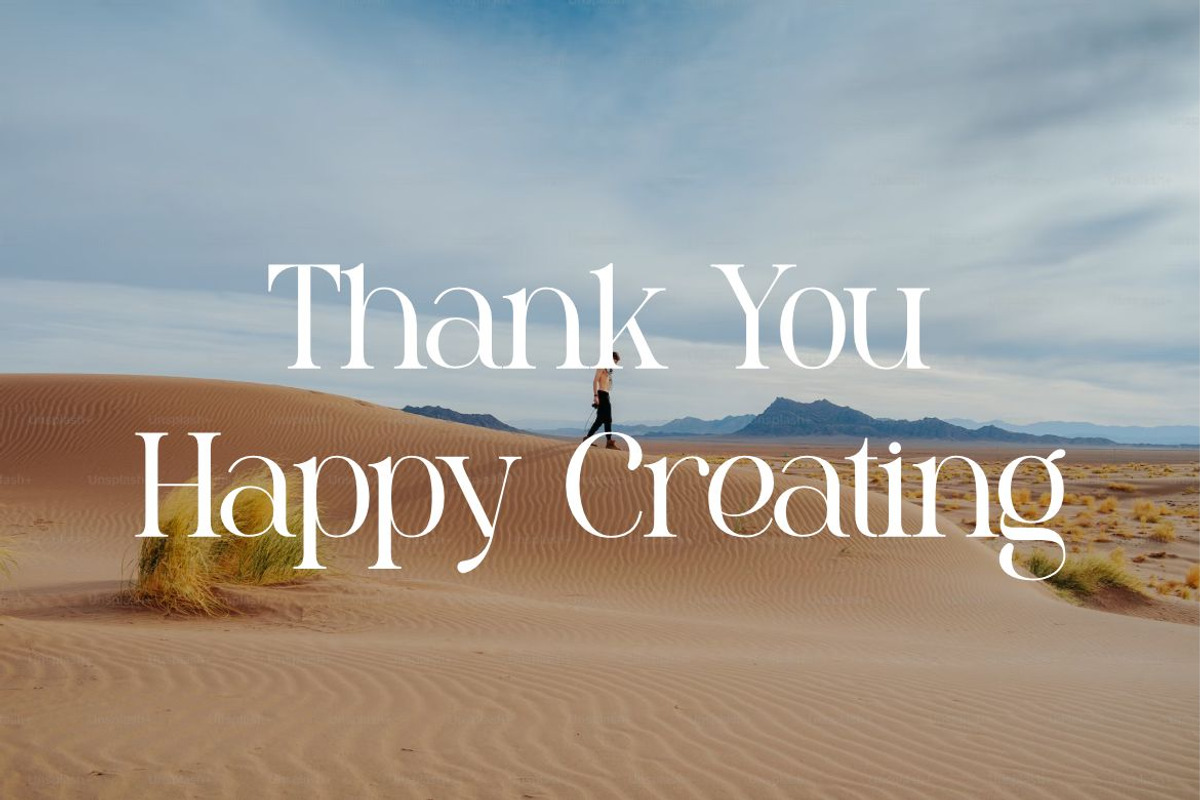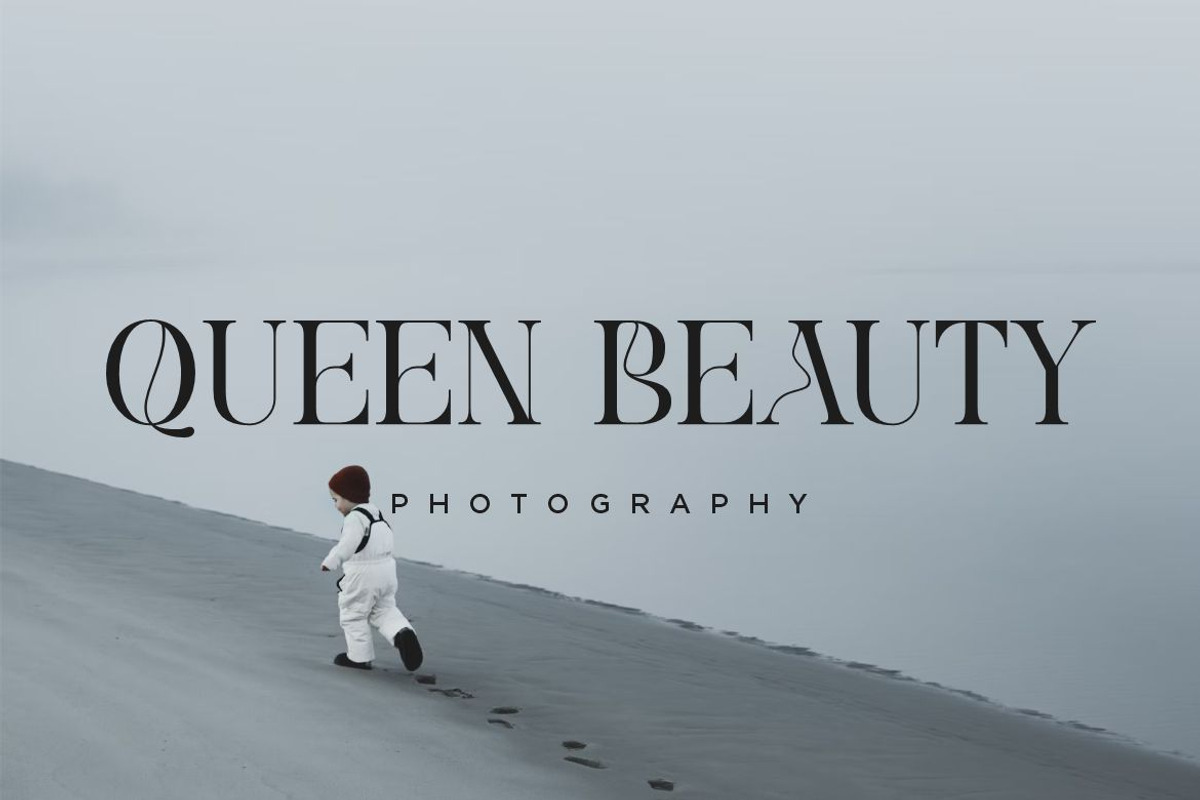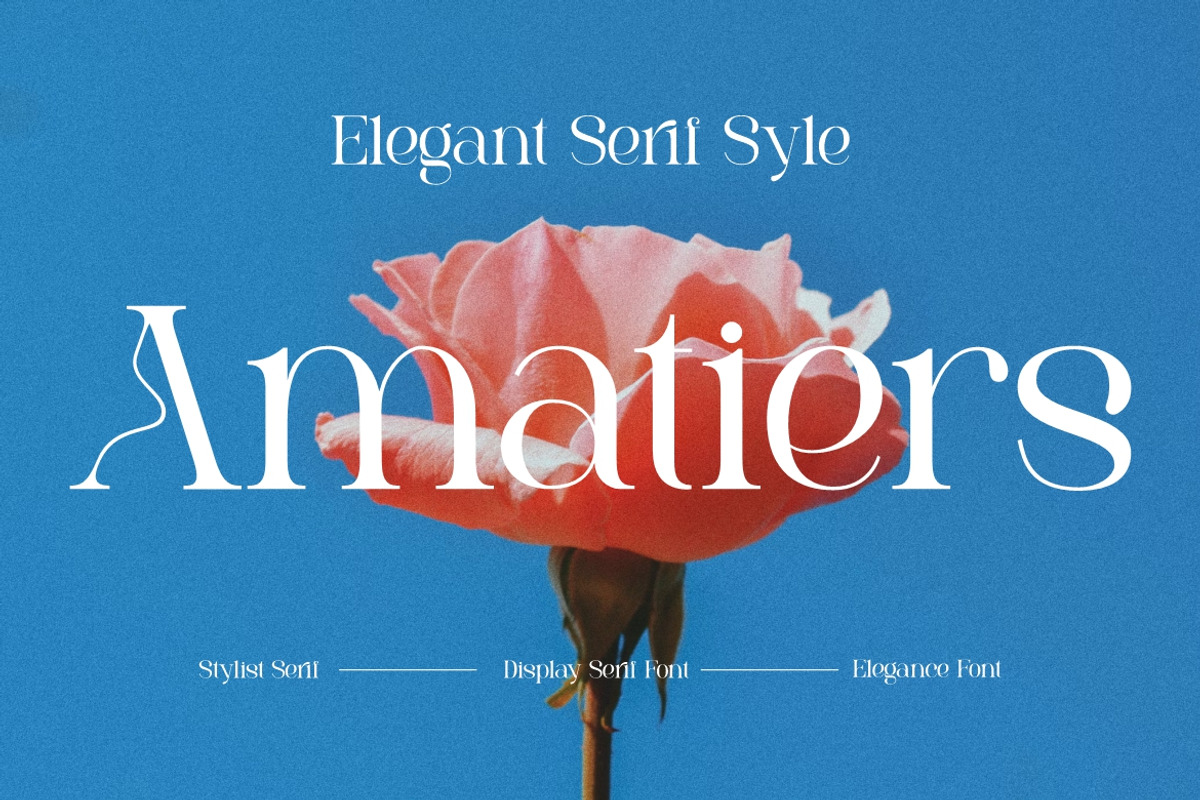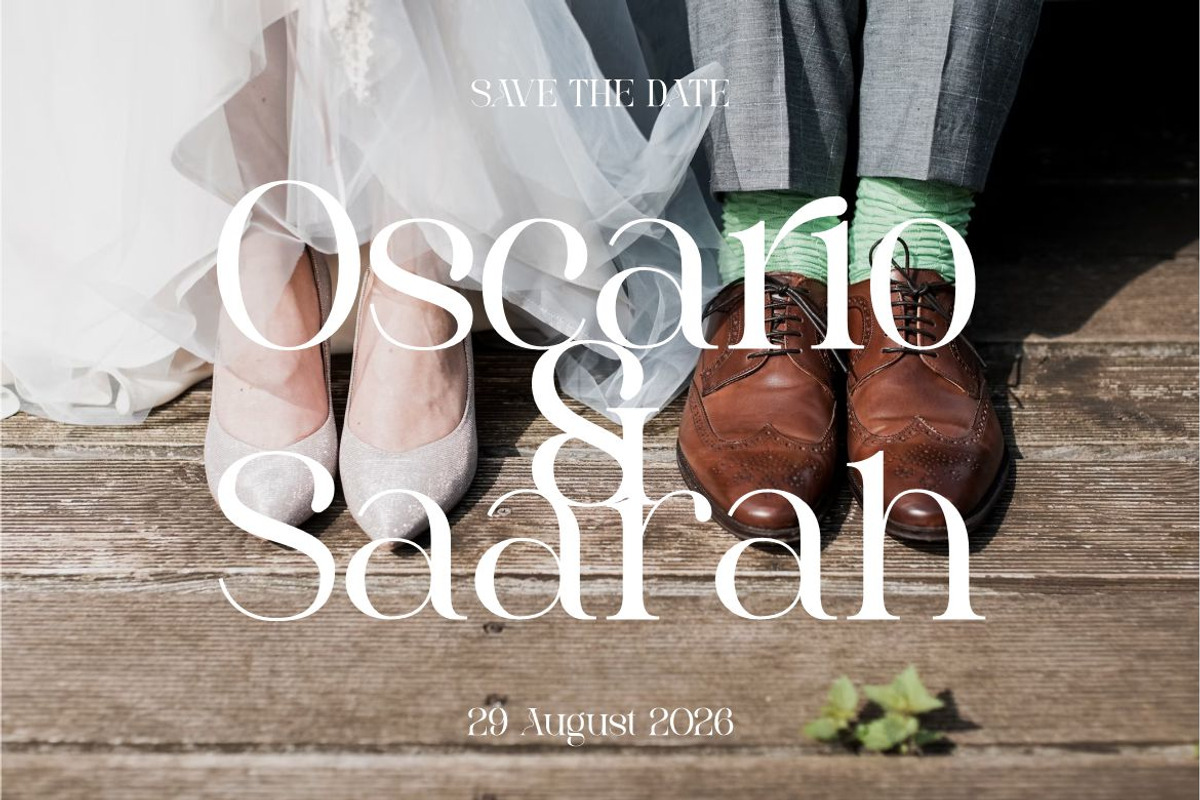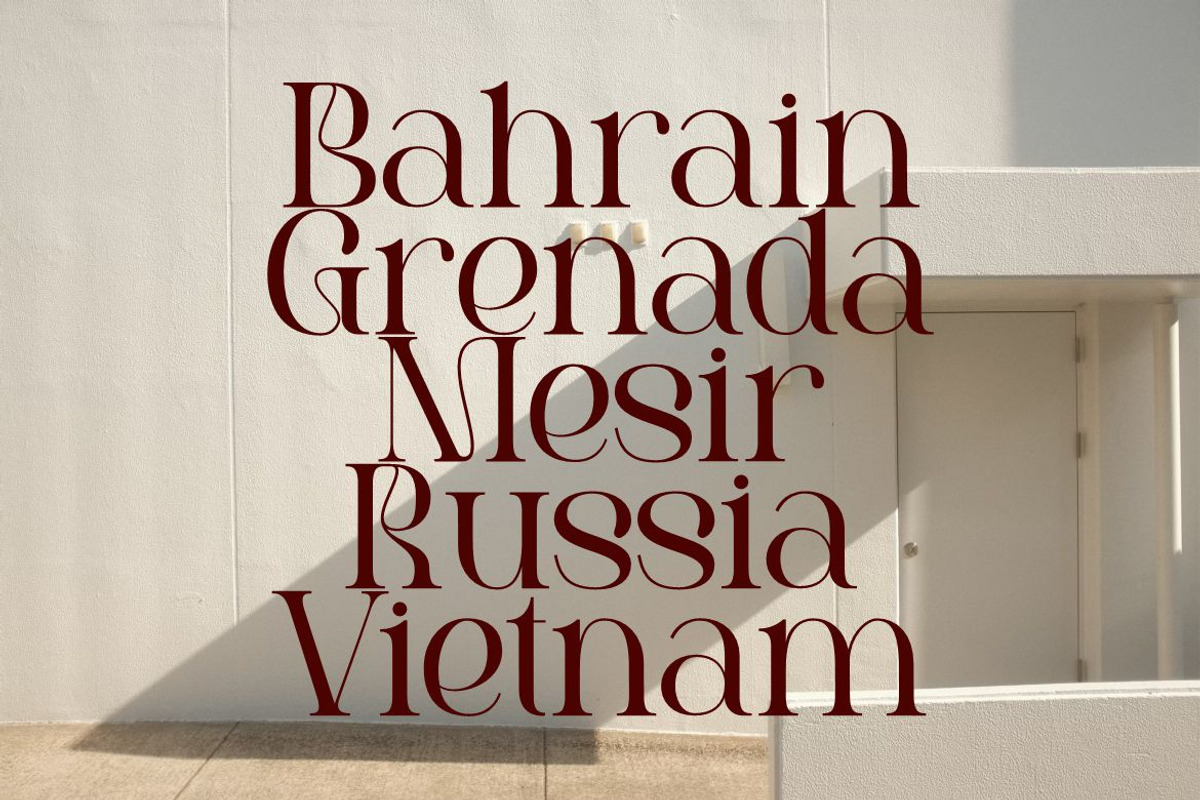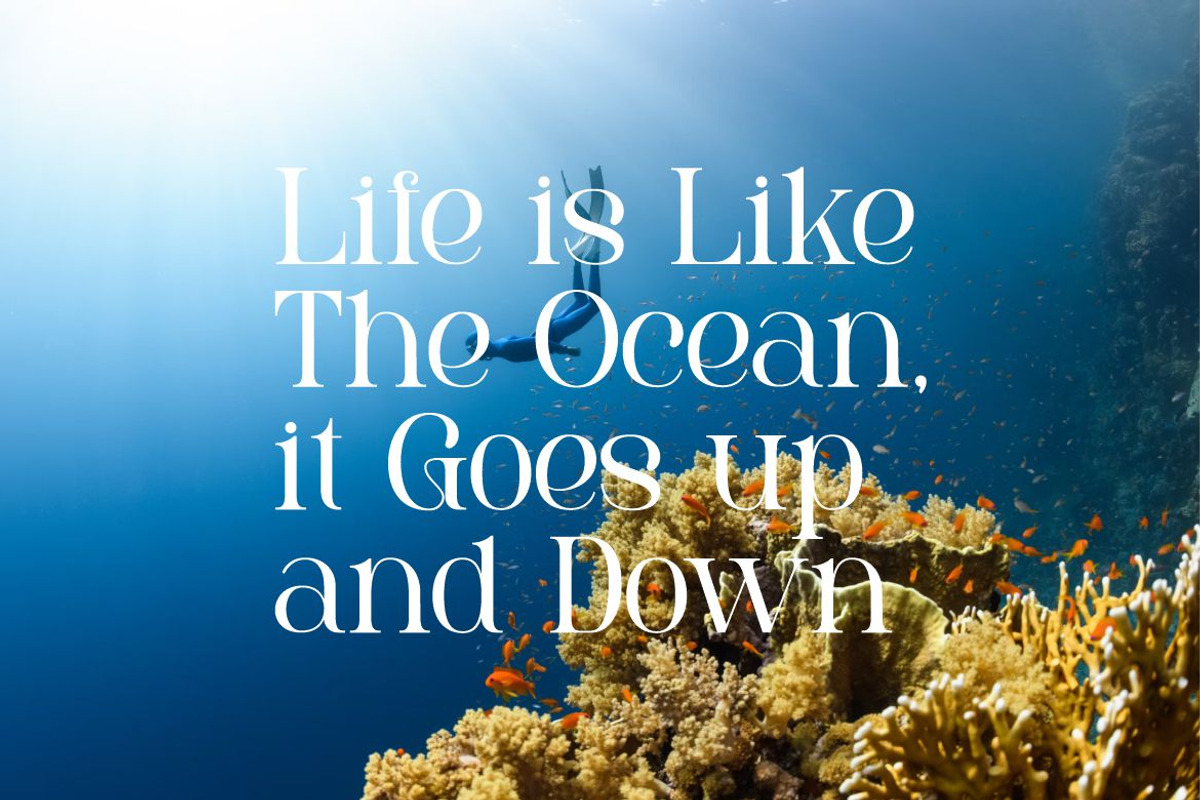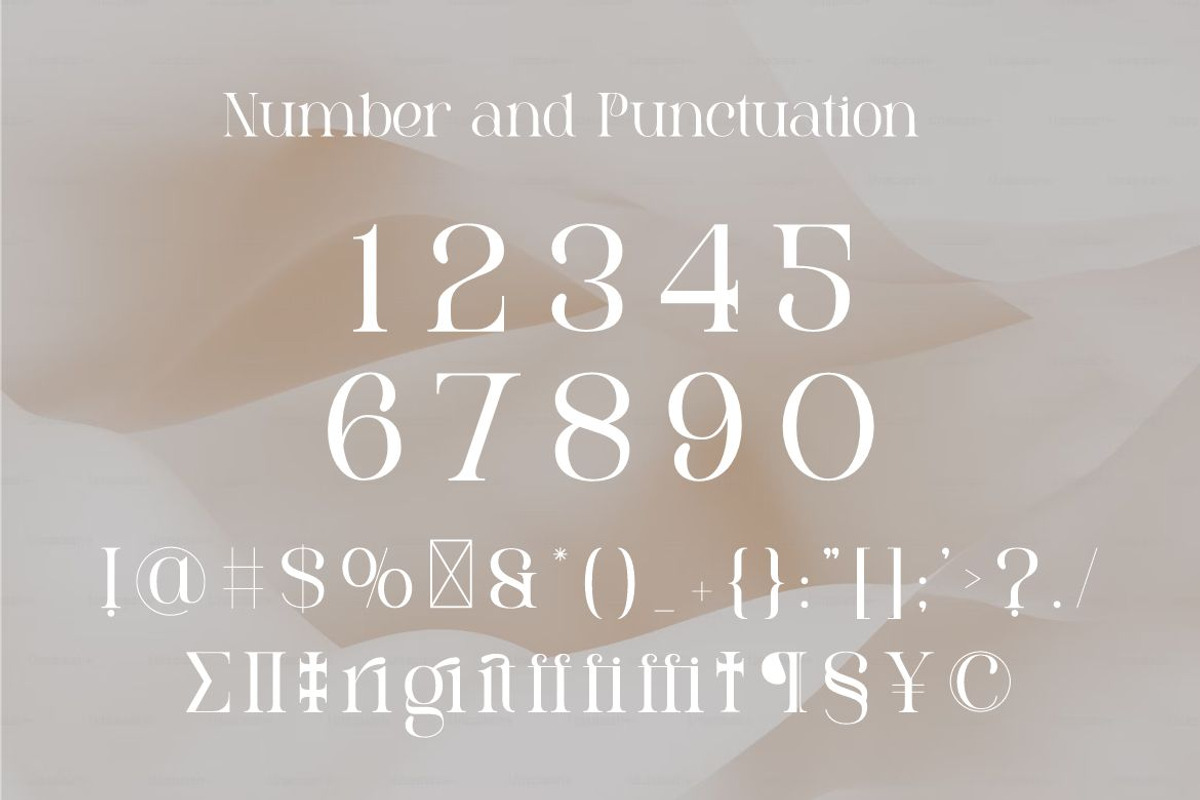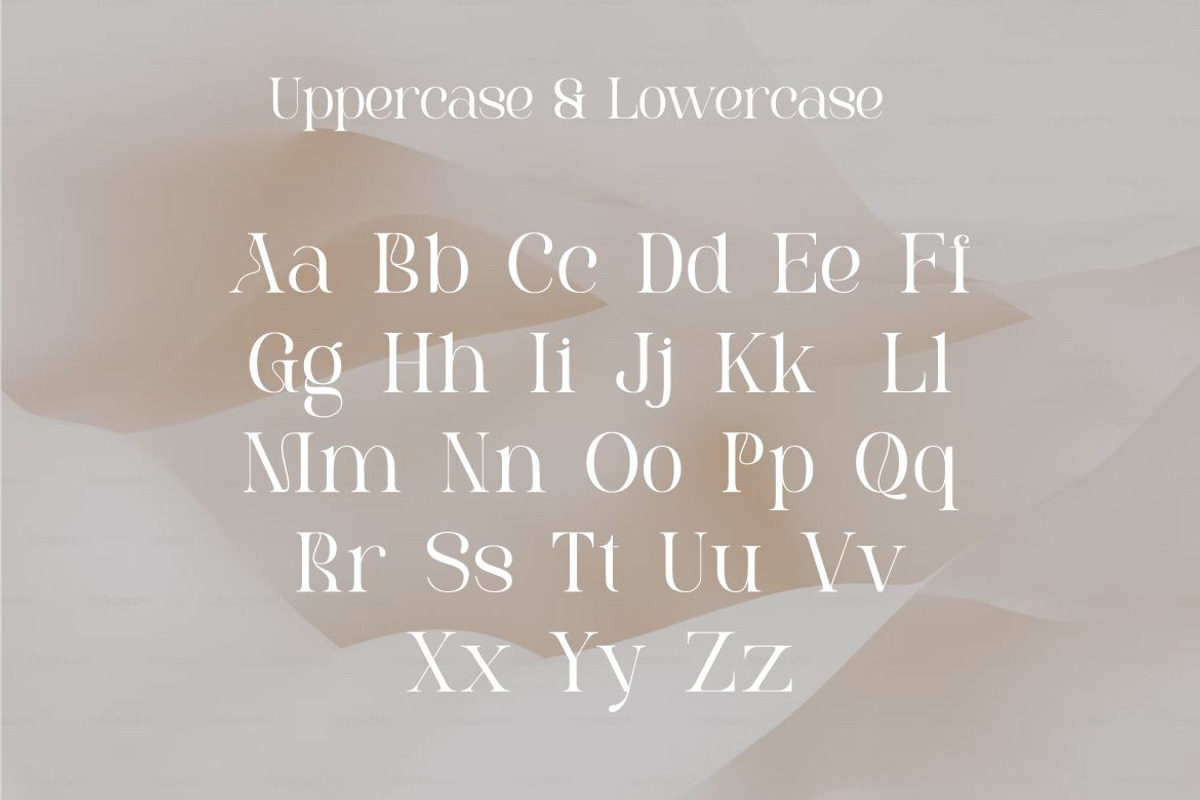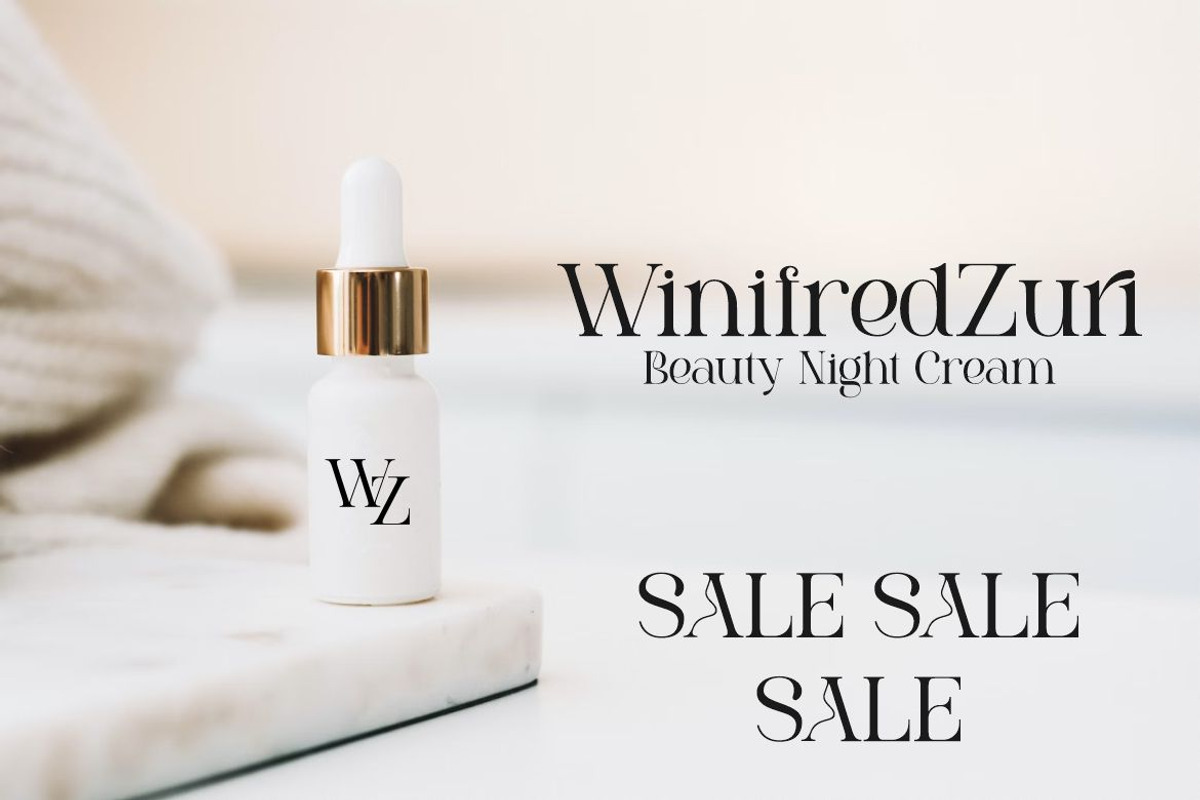
Amatiers
Amatiers is a new serif font. This beautifully timeless serif is the definition of high fashion. This elegant font needs to be in your collection and is perfect for your next luxury design project.